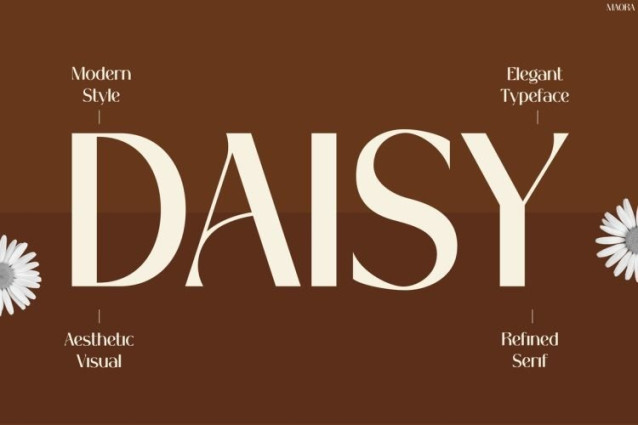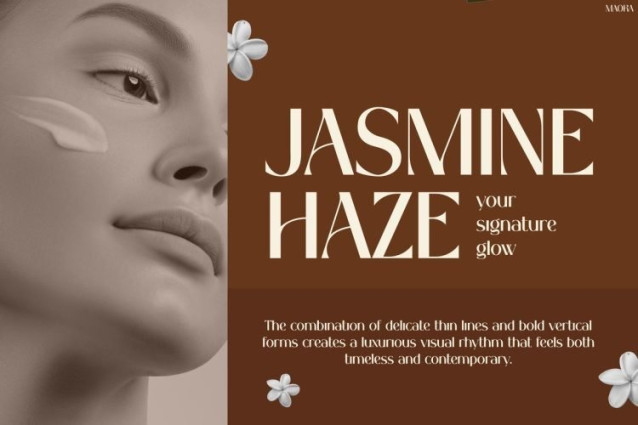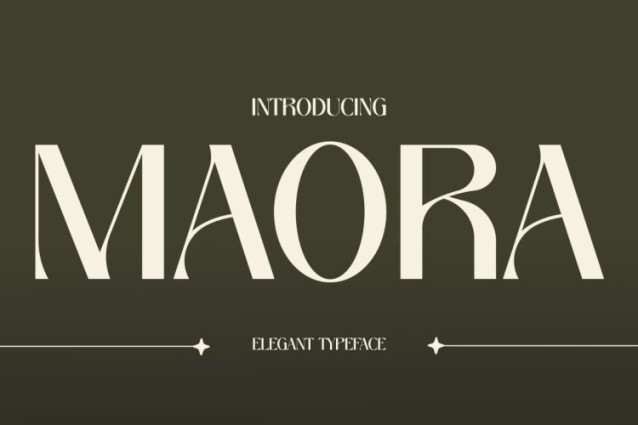
Maora Font
Maora Font is a refined luxury serif font crafted to bring elegance, confidence, and premium aesthetics into every design. Inspired by high-end beauty brands, fashion editorials, luxury packaging, and modern lifestyle campaigns, this font instantly creates a sophisticated visual presence. Moreover, Maora combines graceful high-contrast letterforms with delicate curves and balanced proportions, allowing every word to feel polished and effortlessly stylish. Unlike ordinary serif fonts, Maora delivers a perfect harmony between classic elegance and contemporary minimalism. As a result, it becomes an excellent choice for branding projects that demand a luxurious and memorable identity. In addition, its clean structure ensures excellent readability while maintaining a strong editorial appeal. Therefore, Maora helps transform simple typography into a statement of beauty and prestige.
Why Instagram Font Maora Stands Out
Instagram Font Maora blends timeless serif elegance with modern branding versatility. Furthermore, its sophisticated letterforms create a premium atmosphere that immediately elevates visual communication. Thanks to its luxurious aesthetic, this font works beautifully for headlines, logos, packaging, social media content, and editorial layouts. At the same time, the carefully balanced proportions keep the typography readable across both digital and print applications. Besides that, the elegant contrast between thick and thin strokes adds refinement and visual depth. Additionally, Maora includes uppercase, lowercase, numbers, punctuation, and multilingual support, allowing designers to build cohesive and professional layouts with ease. Consequently, this font becomes a powerful tool for brands seeking a high-end and polished appearance.